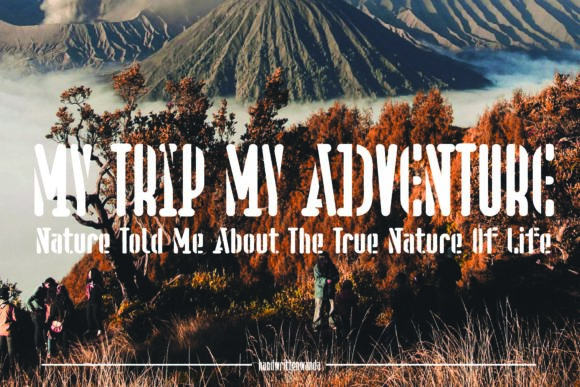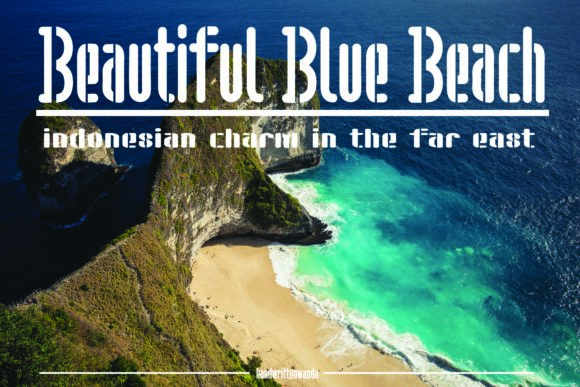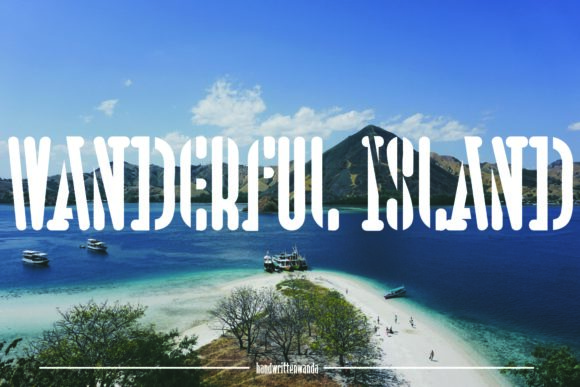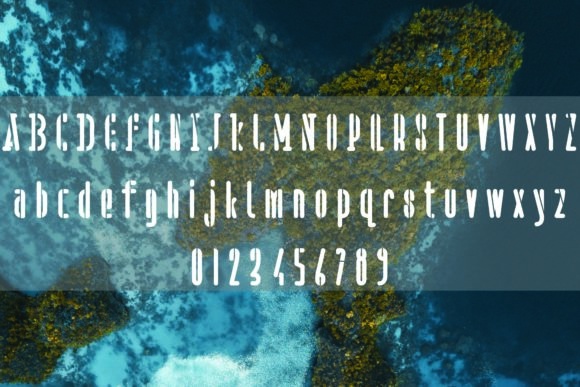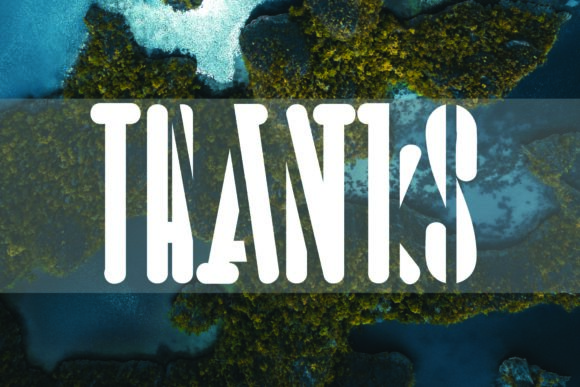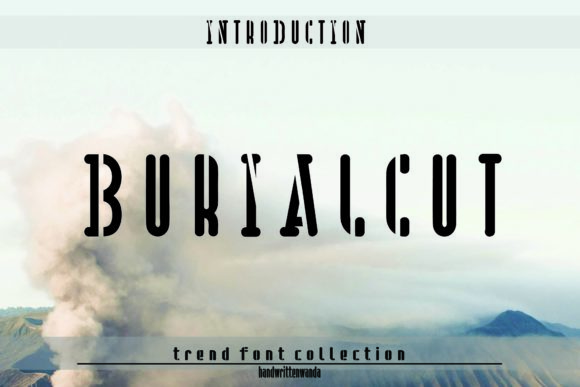
The Buriacut Font: A Simple yet Powerful Tool for Crafting Personalized Projects
I’ll never forget the moment I stumbled upon the perfect font for my crafting project. I was working on a handmade card for a friend’s birthday, and I wanted it to be special. I had tried countless fonts, but none seemed to capture the casual, personalized vibe I was going for. That was until I discovered the Buriacut font. With its simple yet charming design, it instantly elevated my project and made it truly unique.
An Honest Review of Buriacut Font
What I Love About Buriacut Font
• ✨ Simple and casual design that’s perfect for crafting projects
• ✅ Easy to read and understand, even in small sizes
• 💡 Highly versatile and can be used for a wide range of projects, from handmade cards to DIY signs
• 🎨 Great for adding a personal touch to your work
While Buriacut font is an excellent choice for many projects, it’s not without its limitations. For example:
• 🤔 It may not be the best choice for very formal or professional projects, as its casual design may not convey the right tone
• ⚠️ Some users may find the font a bit too simple or plain, especially if they’re used to more ornate designs
One of the best things about Buriacut font is its support for OpenType features and glyphs. These features allow you to customize your text and add special effects. For example, you can:
• Access stylistic alternates to create unique and creative text
• Use glyphs to add special characters and symbols to your text
The Story Behind Buriacut Font
Buriacut font was designed with the creative hobbyist in mind. The designer wanted to create a font that was simple, yet powerful, and could be used for a wide range of crafting projects. With its clean design and highly legible letters, Buriacut font has become a favorite among crafters and designers.
Q: What type of projects is Buriacut font best suited for?
A: Buriacut font is perfect for crafting projects that require a personalized look, such as handmade cards, DIY signs, and other creative endeavors.
Q: Is Buriacut font easy to read?
A: Yes, Buriacut font is highly legible and easy to read, even in small sizes.